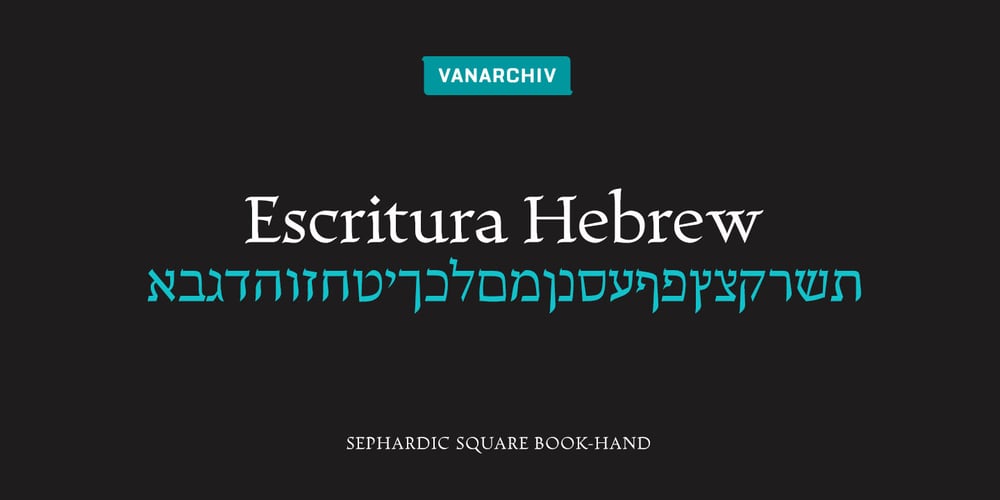
Escritura Hebrew Font Family was designed by Ricardo Santos and published by Vanarchiv. Escritura Hebrew contains 5 styles and family package options. It was my first attempt to drawing a Hebrew alphabet to mach directly with other typeface (Latin) which I already designed. The Latin version is an handwriting display typeface influenced by chancery handwriting from the Italian Renaissance (broad-nib pen). One of the most typographic characteristic is there wavy forms, especially the serifs, where contains some of the main calligraphic references from this font family. The Hebrew script contain reverse contrast, the vertical proportions are more tall and the stroke weight is slightly more strong than latin lowercase to produce a correct visual balance between them, especially on small sizes (text proportions). This Hebrew square book-hand was influenced by Sephardic script style. The Latin characters contains interrupted strokes, the same was made for Hebrew letterforms to transpose correctly the same calligraphic approach between these two different alphabets.